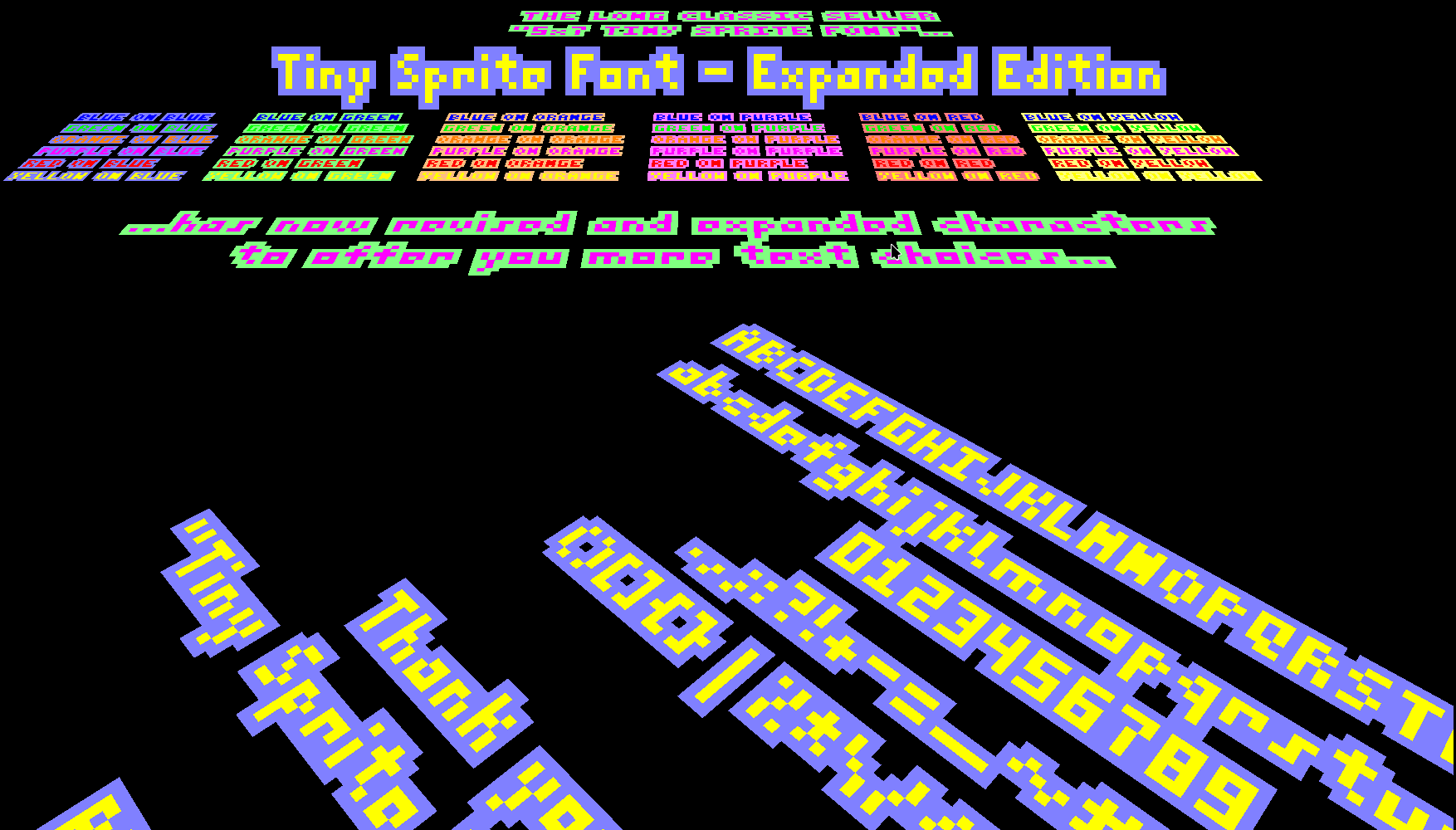
Hi everyone, for the ones of you developing pixel art games, I have updated and expanded my classic "5x7 Tiny Sprite Font" into a new asset: "Tiny Sprite Font - Expanded Edition".
This new game asset version has now lowercase letters too. Some of the old characters have been improved and more symbols have been added.
The new size is now 7 x 9 pixels.
The classic previous colour palette and combo have been preserved and in addition I added all CGA colour combination of text + border (unless it's the same colour), for a total of 276 different colour combinations ready to use with your classic inspired games.